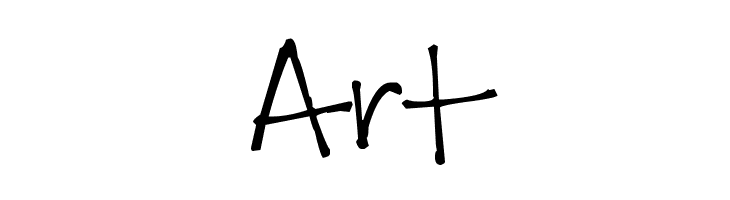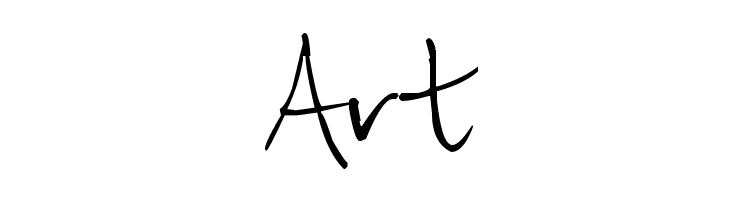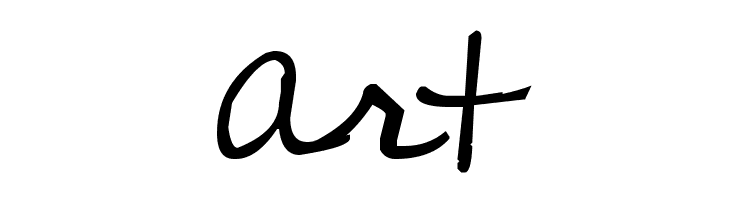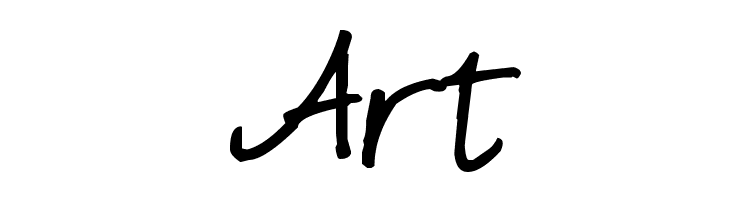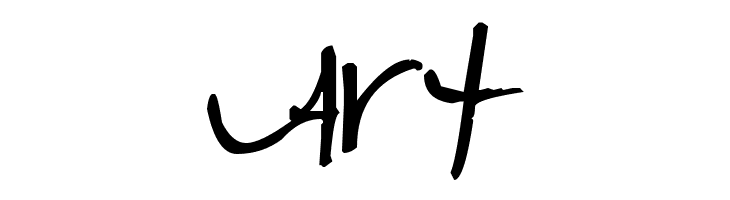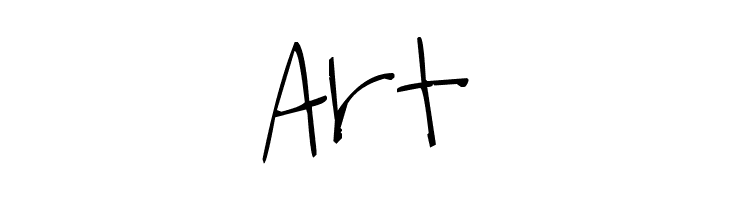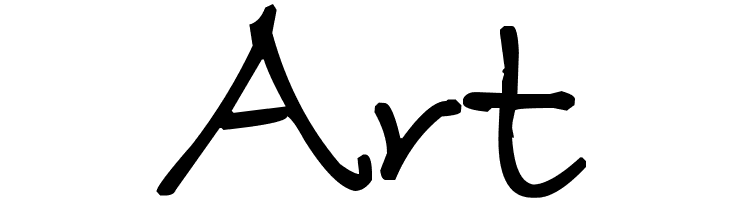
• Pea Robyn
A casual and playful handwritten font with dynamic strokes.
• Pea Roni Script
A casual, handwritten script font with fluid, connected letters and dynamic strokes.
• Pea Roxygirl
A playful, casual handwritten font with loose, flowing strokes.
• Pea Sadie
A playful, handwritten font with a casual and friendly vibe.
• Pea Sara
A playful, casual handwritten font with fluid strokes and a personal touch.
• Pea Sara Print
A playful, casual handwritten font with dynamic strokes and a lively appearance.
• Pea Sara Script
A playful, handwritten script with flowing, connected letters and a casual aesthetic.
• Pea sdflenner
A playful, handwritten font with a casual and dynamic style.
• Pea Shirley
A playful, casual handwritten font with fluid strokes and medium contrast.
• Pea Snow
A playful, informal handwritten font with a casual and friendly vibe.